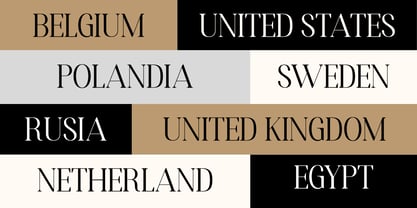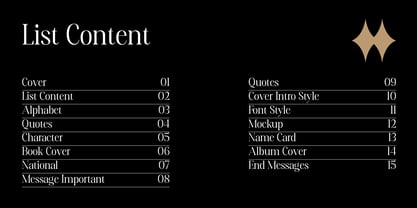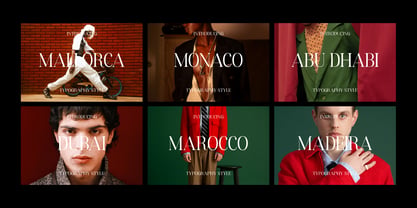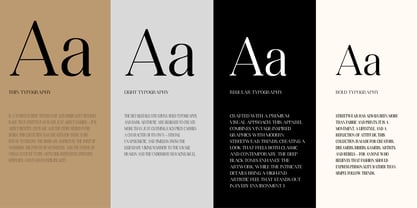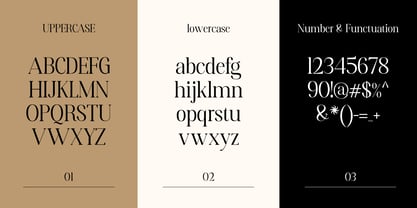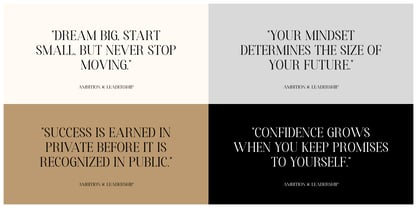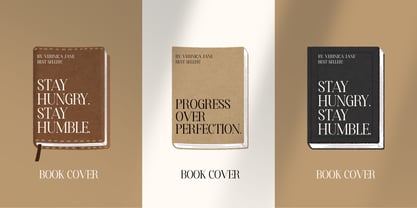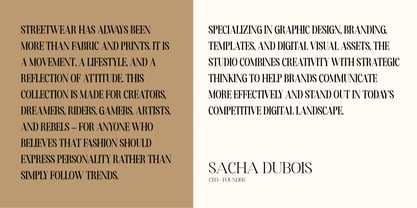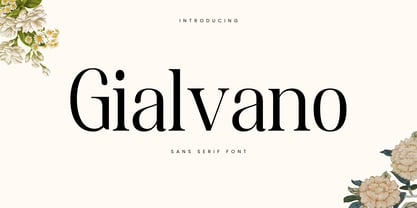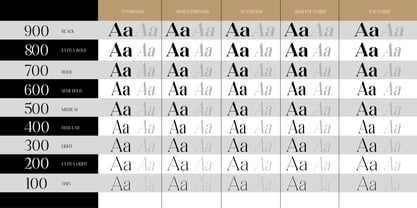
Gialvano
by Salsatype
The Gialvano Font Family was designed by Dodi Kurniawan and published by Salsatype. Gialvano contains 90 styles and family package options. More about this family
Gialvano is a modern serif typeface family that balances elegance and warmth through its harmonious, charming angles, guided by gentle slopes, and carefully crafted proportions. Designed in several weights and width variations, this typeface offers exceptional flexibility for both display and editorial applications. Its graceful curves and robust structure create a sophisticated visual rhythm, making it ideal for branding, luxury packaging, publishing, headlines, and contemporary typography. Gialvano conveys a timeless character while maintaining a modern and approachable presence in both print and digital environments.
Designers: Dodi Kurniawan
Foundry: Salsatype